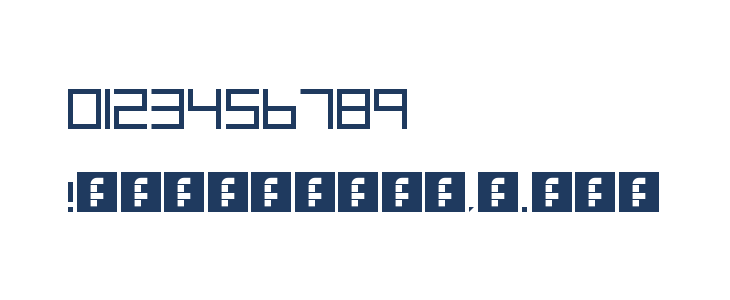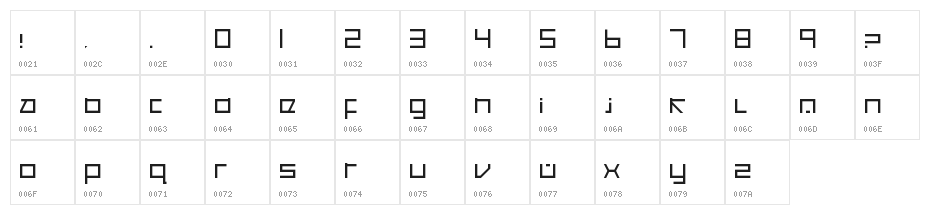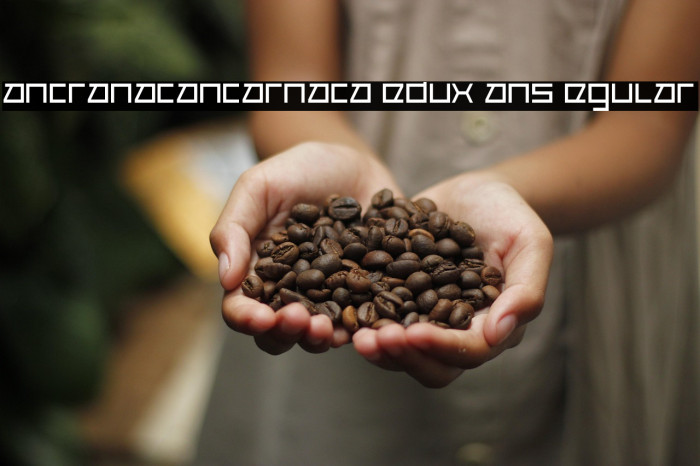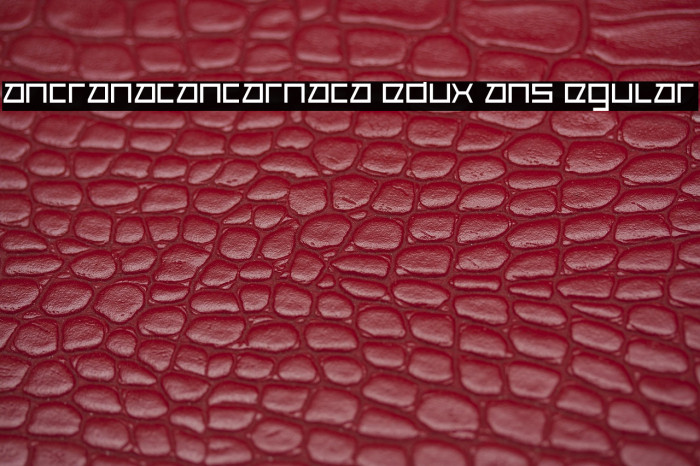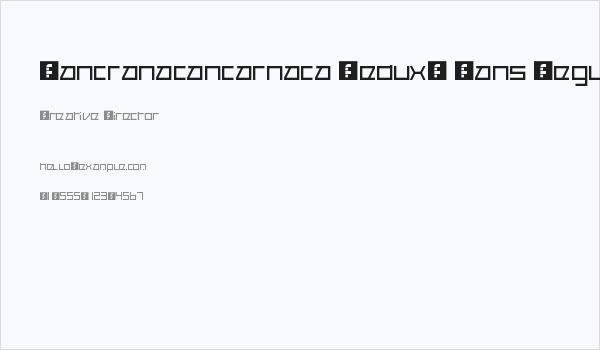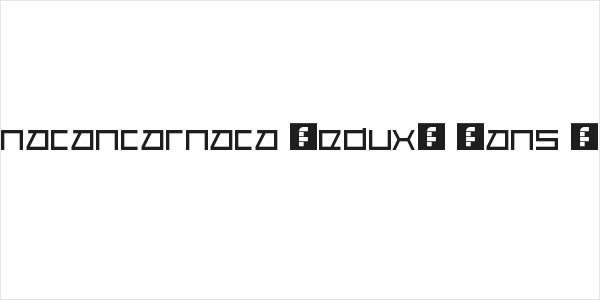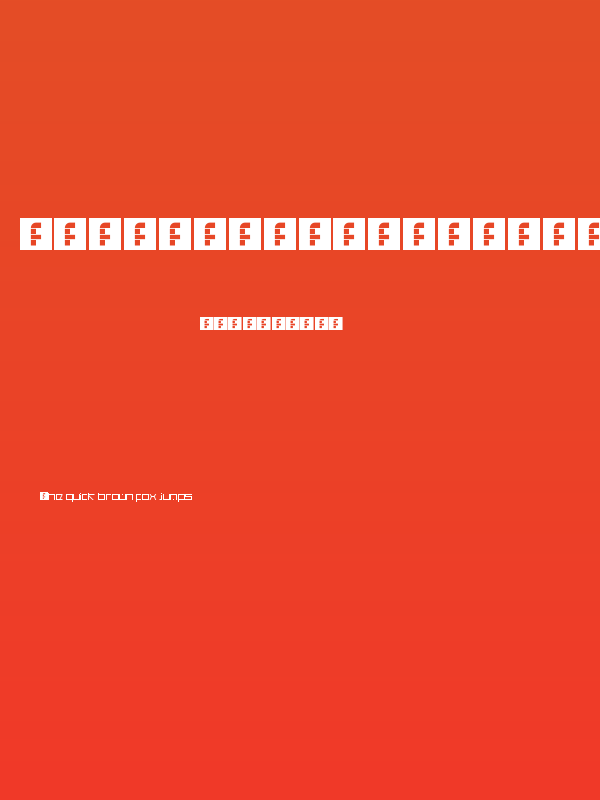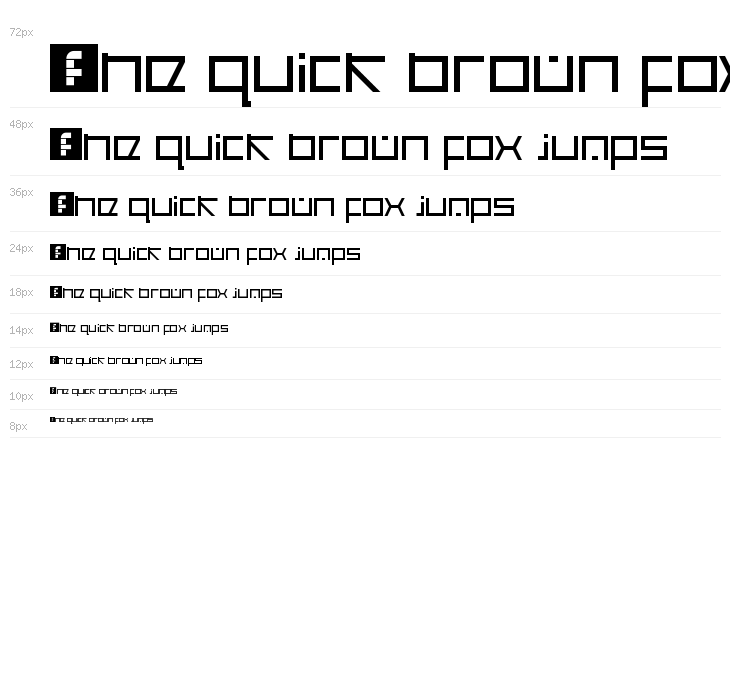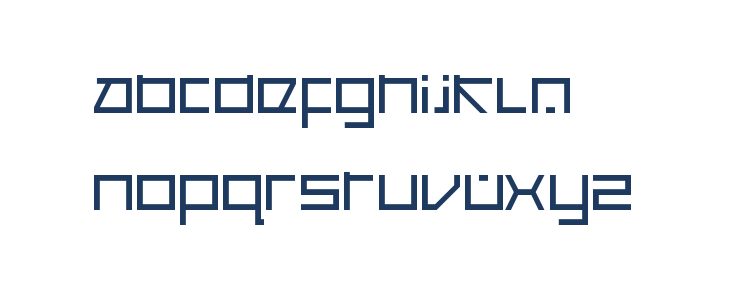
Cancranacancarnaca Redux: Sans Regular Font
Cancranacancarnaca Redux: Sans Regular Description
This font features a geometric and futuristic design with a distinct, angular appearance. Each character is crafted with precision, showcasing a blend of straight lines and sharp angles. The uppercase and lowercase letters maintain a consistent style, providing a cohesive look. Numbers and special characters follow the same geometric theme, ensuring uniformity across all glyphs. The font's structure is both modern and minimalistic, making it suitable for contemporary design projects.
| Proposed Projects | Ideal for tech branding, modern posters, digital interfaces, and sci-fi themed projects. |